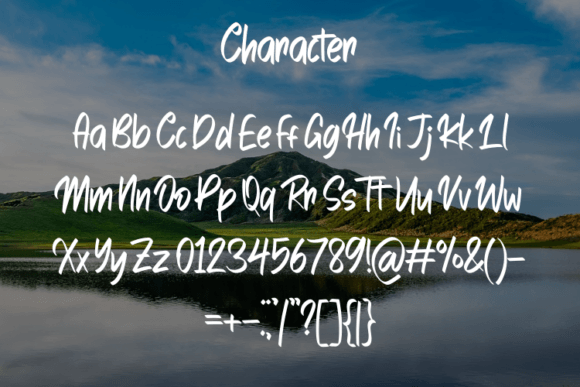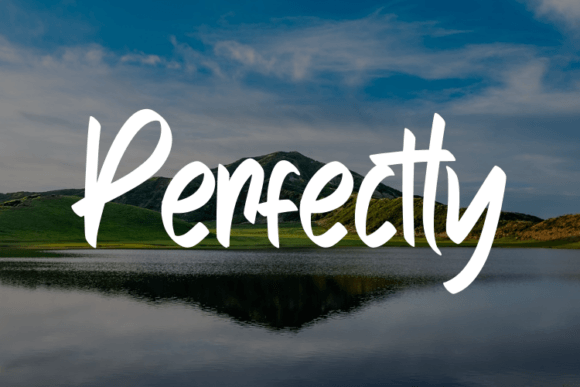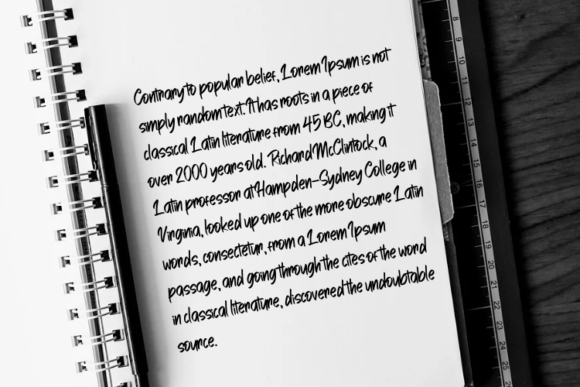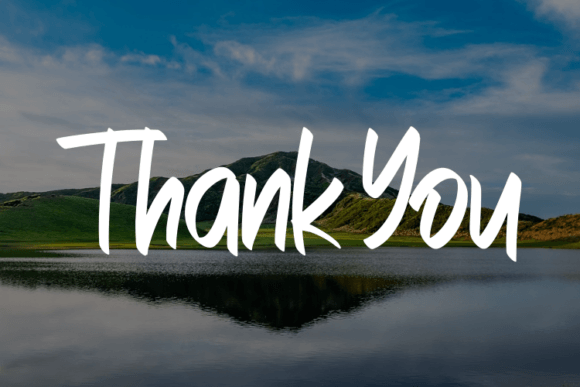
Introduction to Maskers Font
Have you ever stared at a blank canvas, waiting for the perfect font to bring your creative project to life? For designers, finding the right typography can be the difference between a good design and a great one. That’s why we’re excited to introduce you to the Maskers Font, a stunning script typeface that’s sure to elevate your designs to new heights.
Key Features of Maskers Font
- Unique, handcrafted design elements make Maskers Font a standout choice for designers seeking a distinctive look.
Honest Review: Maskers Font
- ✨ The font has a beautiful, elegant design that’s perfect for creative projects.
- ⚠️ The font is not suitable for body text, as it’s quite ornate and may be difficult to read.
- ⚠️ There are limited font sizes and styles available, which may limit its versatility.
Overall, I’m impressed with the quality of the Maskers Font. It’s perfect for adding a touch of elegance to your design, but may not be suitable for large blocks of text. I’d definitely recommend it as a design resource, but use it wisely.
Common Use Cases for Maskers Font
The Maskers Font is perfect for creative projects, such as branding, marketing materials, and digital designs. It’s also great for use in social media graphics, presentations, and documents.